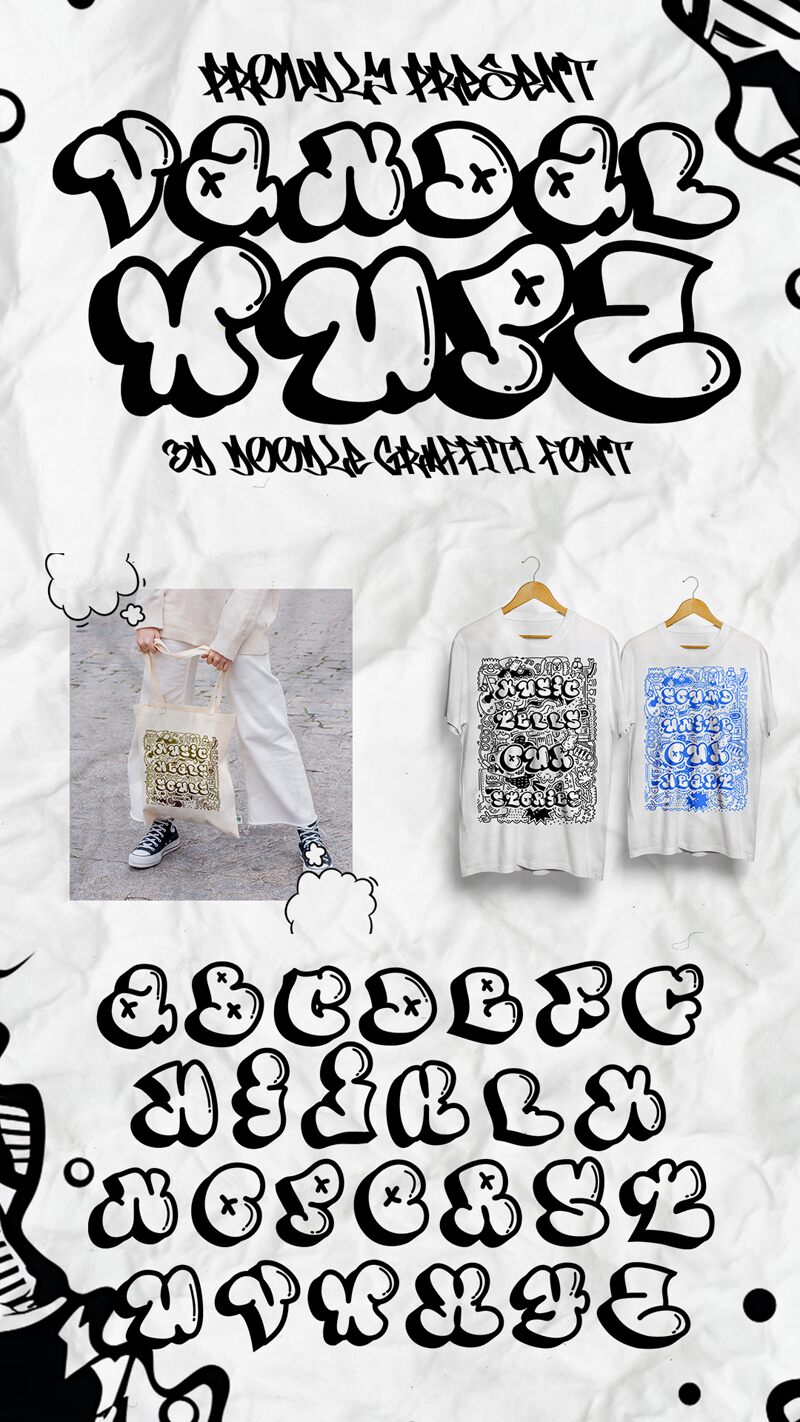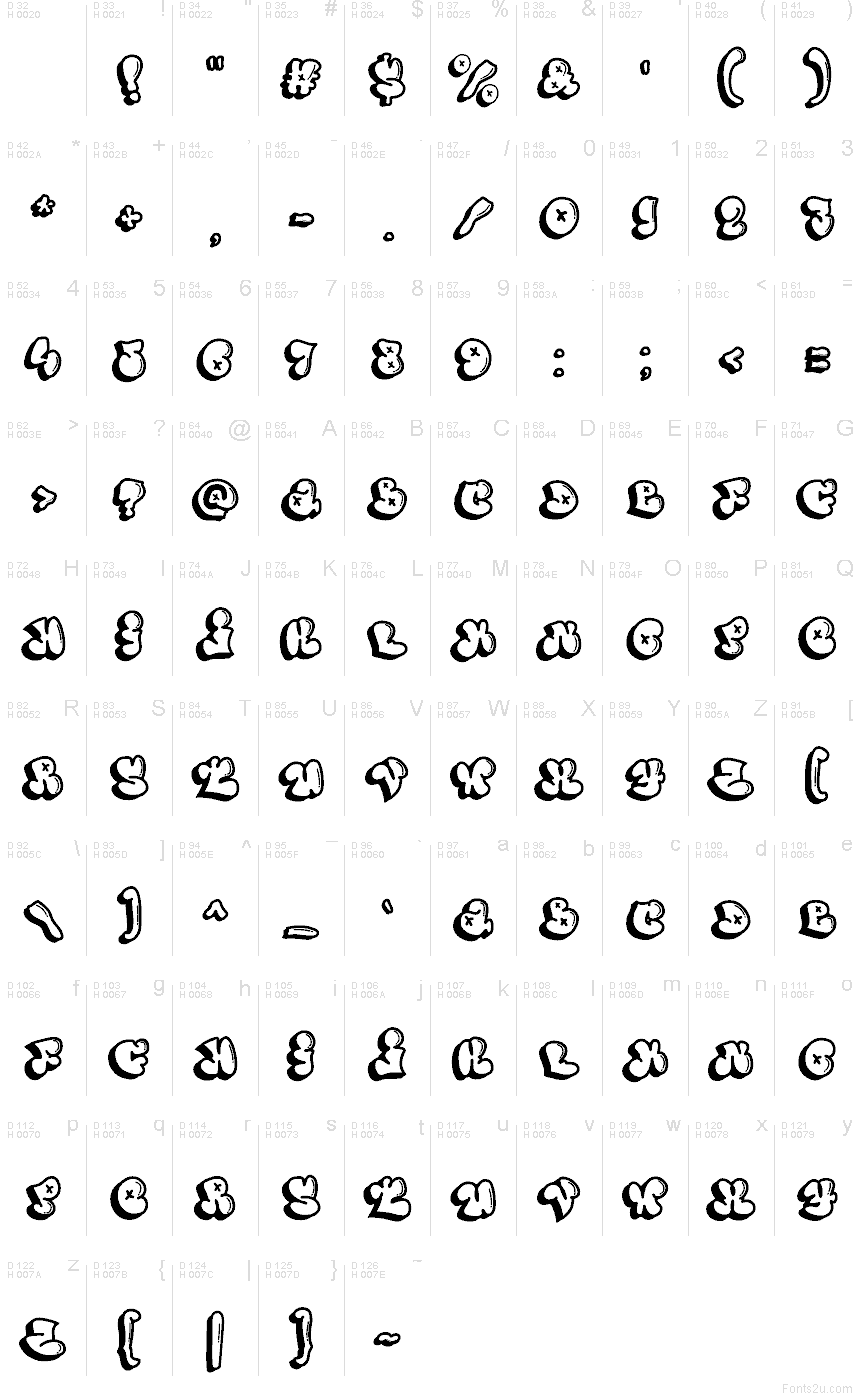
Vandal Wupz
Vandal Wupz font by Panji Ramdhani of Figuree Studio is a free graffiti typeface that comes on like fresh marker ink on a concrete wall. Huge, pillowy bubble letters swell into each other, with thick black fills and cartoonish details that feel loud, messy, and full of attitude. The shapes look almost inflatable—soft and squishy around the edges—yet the bold outlines keep everything readable at a glance.
Using Vandal Wupz, your lettering instantly feels like it was tagged in one fearless motion, making this free font a natural fit for streetwear logos, hip‑hop or EDM cover art, YouTube thumbnails, stickers, skate brands, and bold event posters. It’s strongest at large sizes where the chunky forms and inky pockets can really breathe; pair it with a simple, narrow sans-serif for any supporting text to keep the chaos controlled.